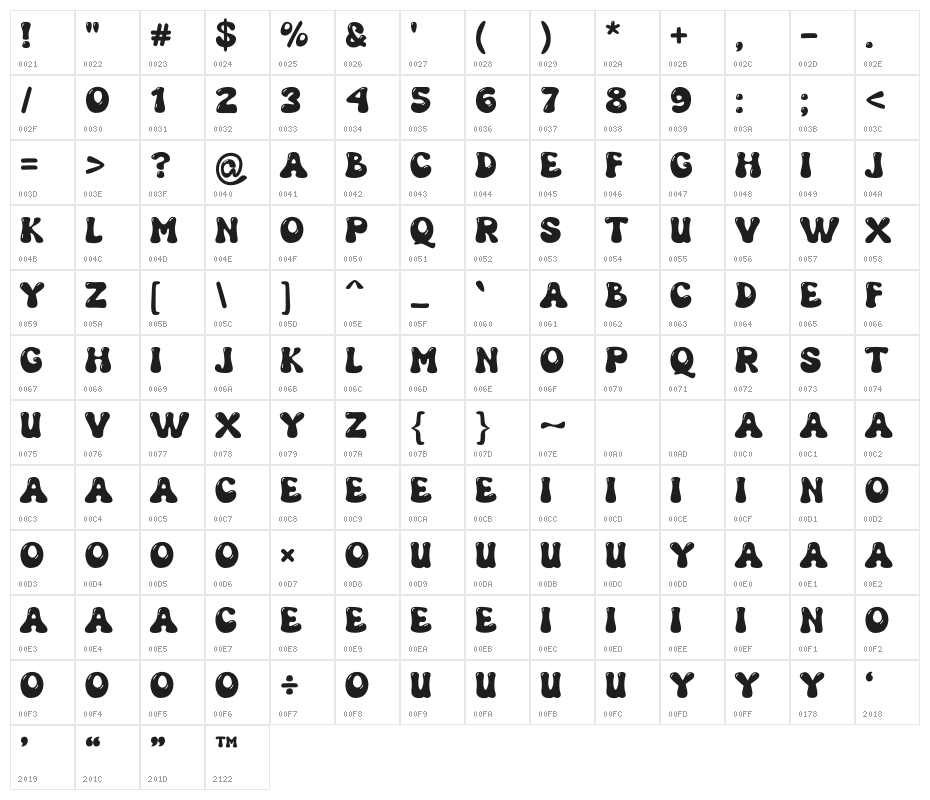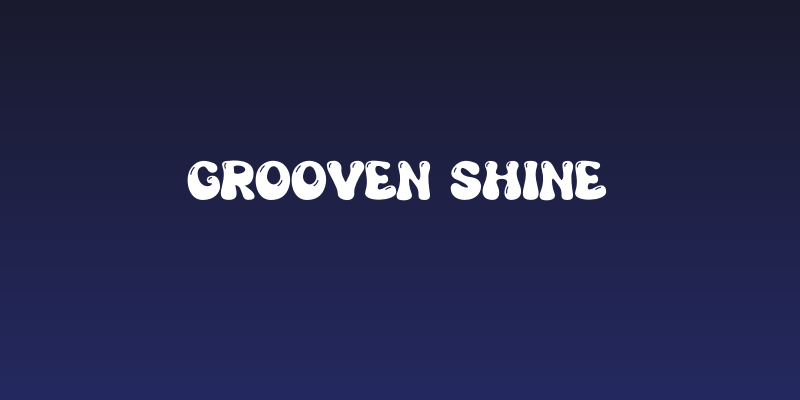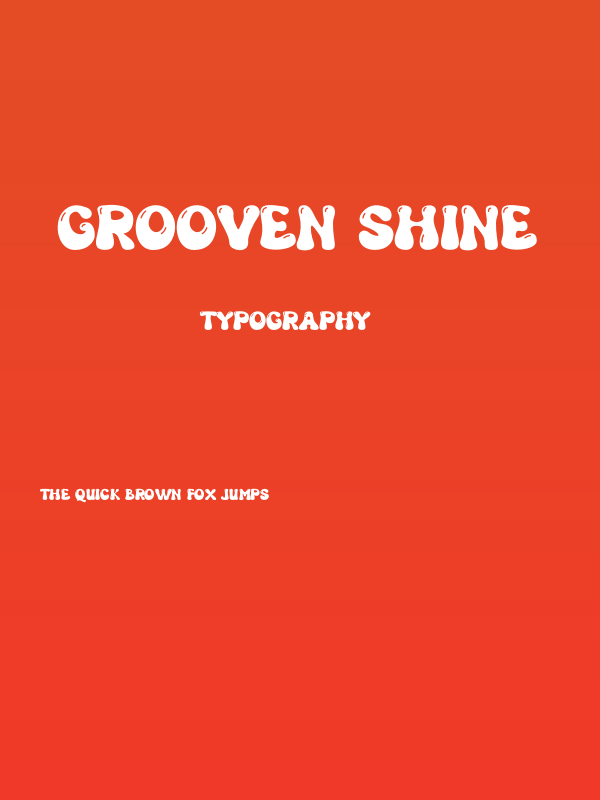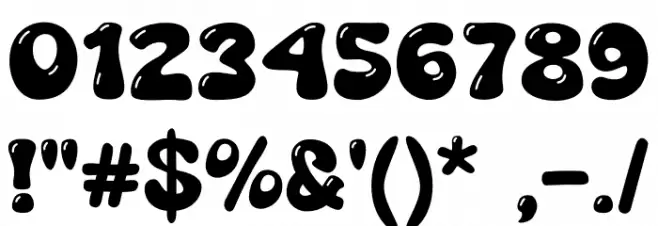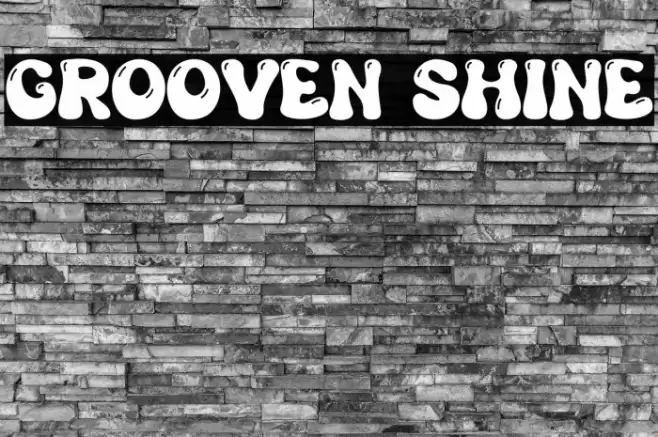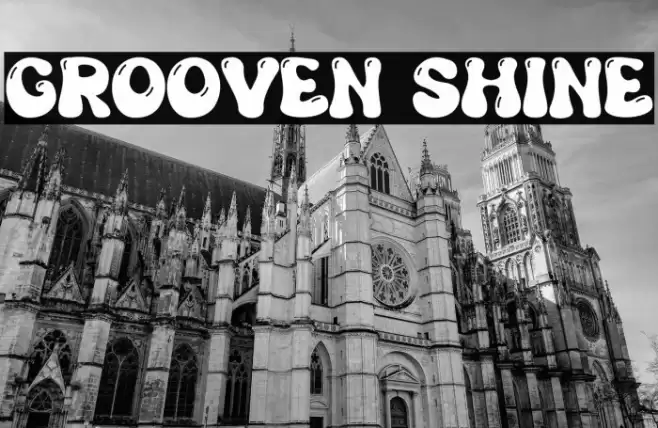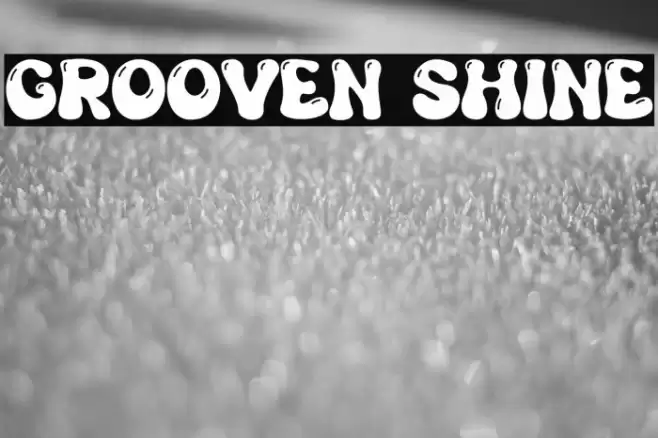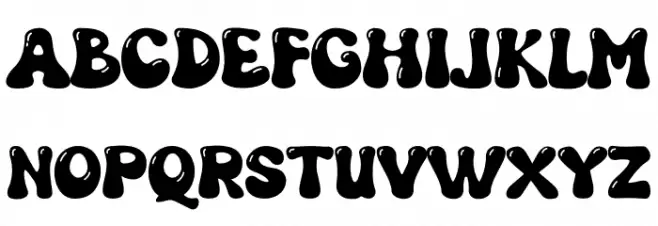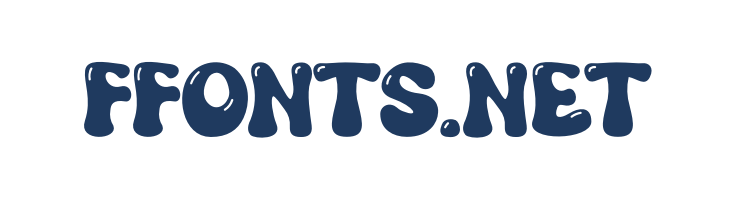
Grooven Shine Font
Grooven Shine Description
This playful and bold font features a bubbly, rounded style that exudes a sense of fun and whimsy. The characters are thick and substantial, with a glossy appearance that gives them a shiny, almost liquid-like quality. Each letter is distinct and easily recognizable, making it suitable for eye-catching designs. The font maintains a consistent weight throughout, with smooth curves and a slightly exaggerated form that adds to its playful nature. The spacing between characters is normal, allowing for clear readability while maintaining its unique style.
| Overall Style | Playful, Fun, Whimsical |
| Proposed Projects | Ideal for children's books, playful branding, party invitations, and creative posters. |